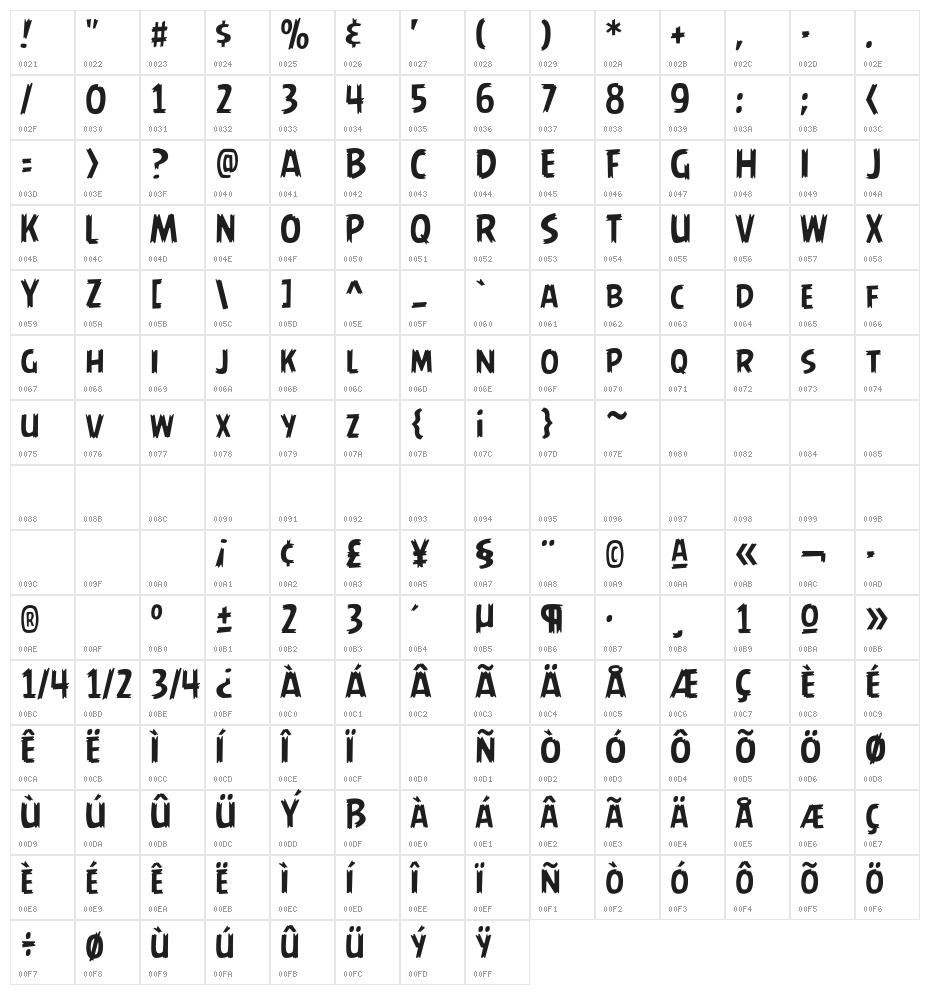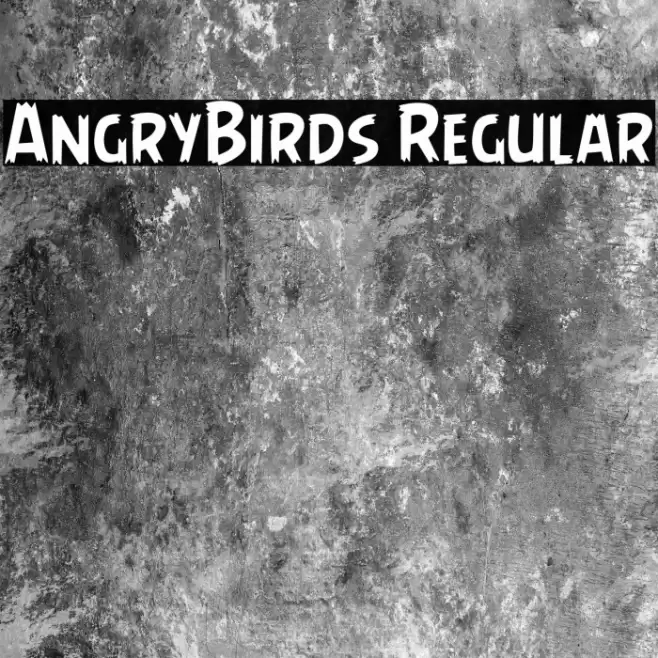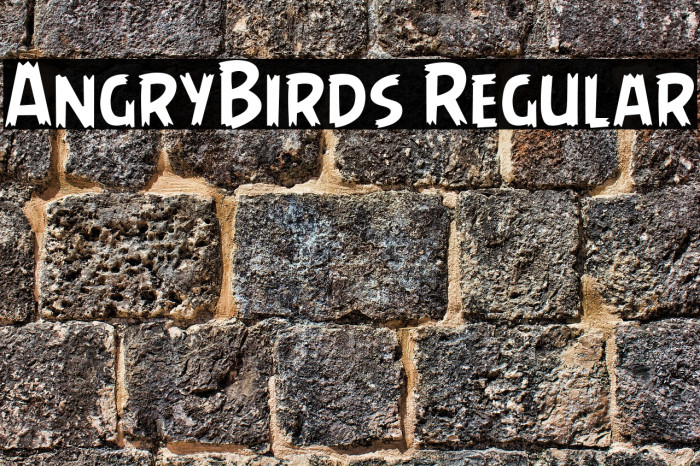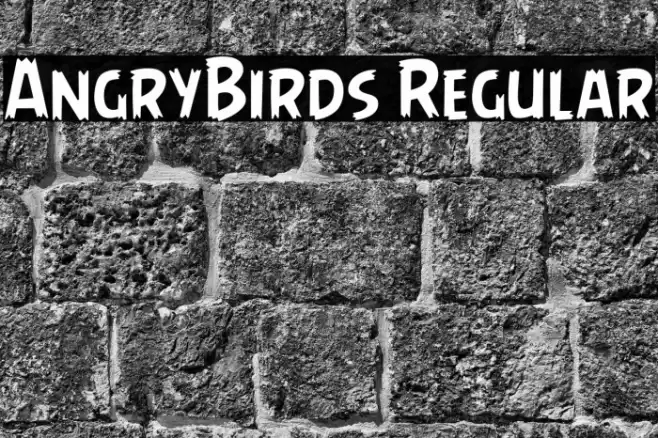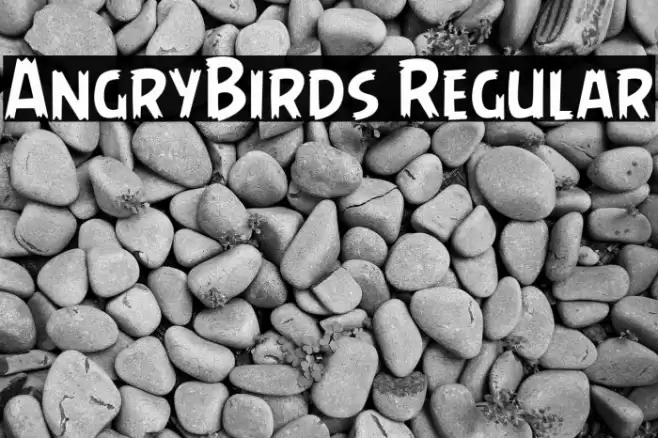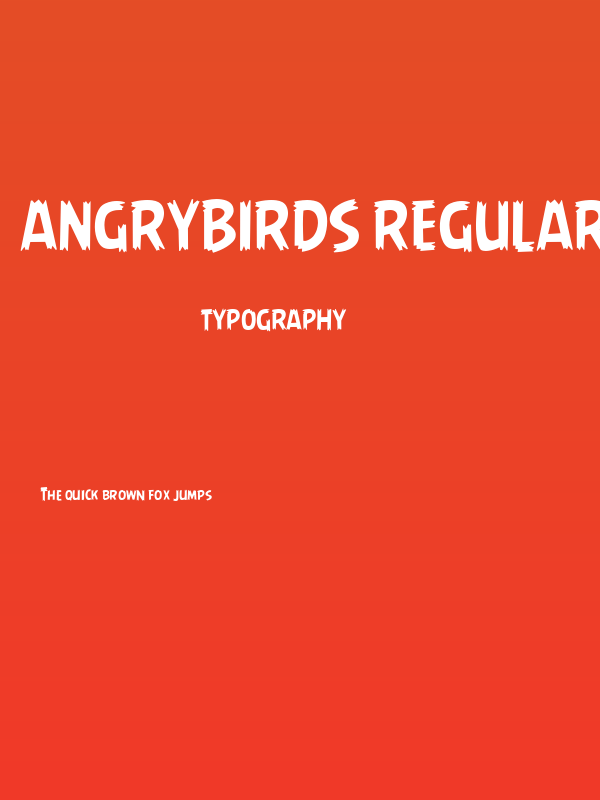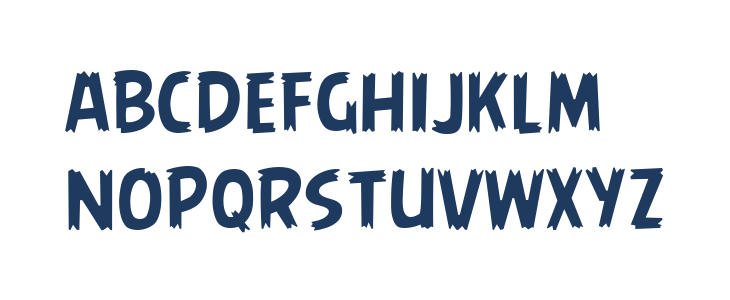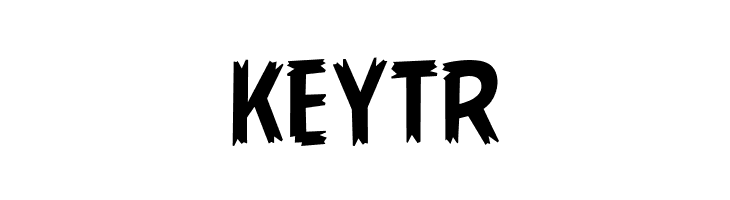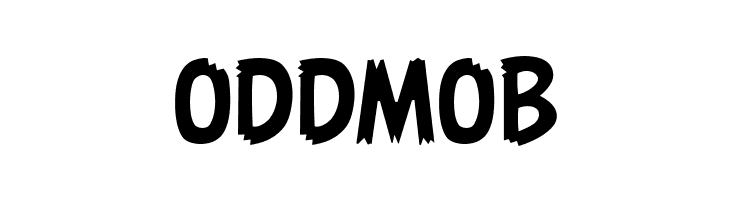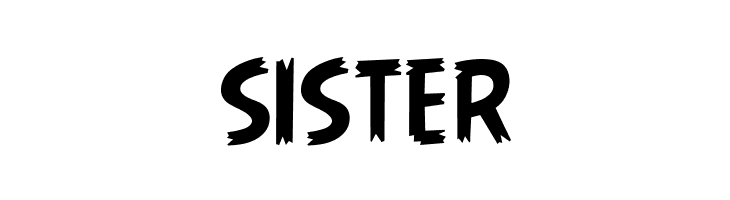
AngryBirds Regular Font
AngryBirds Regular Description
This font features a bold and playful design, characterized by its jagged edges and dynamic, energetic style. The letters have a slightly irregular form, giving them a hand-drawn appearance that adds a sense of movement and excitement. The uppercase and lowercase letters maintain a consistent style, with the uppercase being more pronounced. The numbers and special characters follow the same energetic theme, making the font suitable for projects that require a fun and lively aesthetic.
| Overall Style | Playful, Energetic, Fun |
| Proposed Projects | Ideal for children's books, video game graphics, playful branding, and posters. |